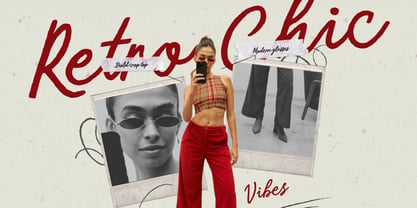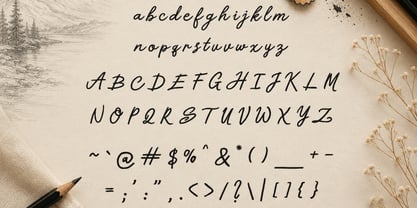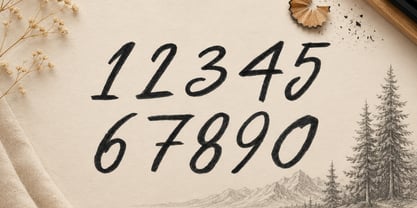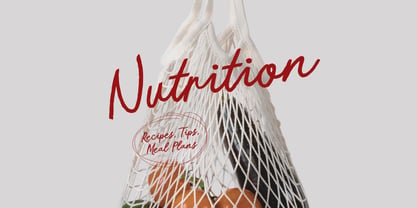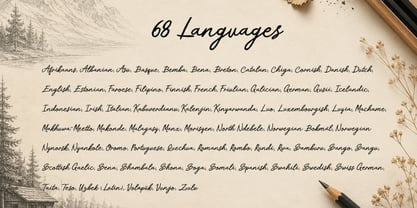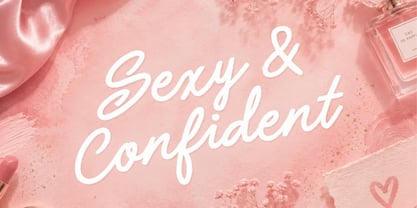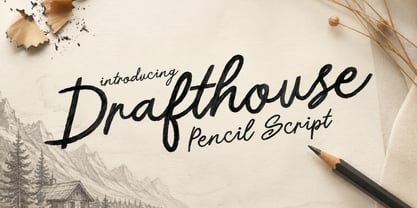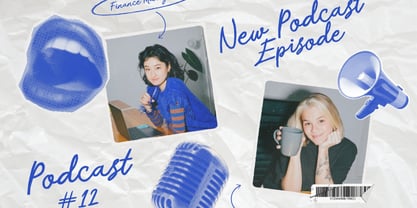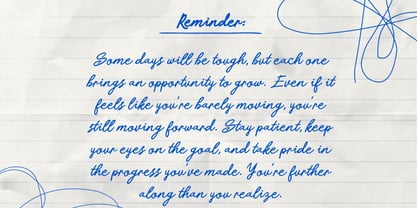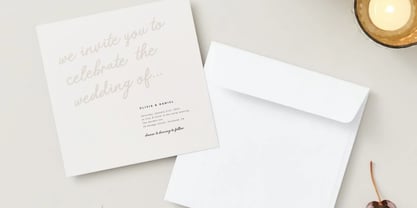
Drafthouse
The Drafthouse Font Family was designed by Igor Ovsyannykov and published by Hipfonts. Drafthouse contains 1 styles. More about this family
Bring the timeless charm of authentic pencil lettering to your creative projects with Drafthouse, a beautifully handcrafted script font inspired by the natural imperfections of real handwriting. Every stroke has been carefully designed to capture the subtle grain, pressure changes, and organic flow of a genuine pencil sketch, giving your typography an unmistakably human touch.
Whether you're designing elegant branding, heartfelt invitations, stylish packaging, social media graphics, book covers, journals, greeting cards, or creative marketing materials, Drafthouse delivers warmth, personality, and authenticity that instantly elevates your work. Its smooth handwritten rhythm feels both refined and approachable, making every word look effortlessly personal.
Unlike sterile digital scripts, Drafthouse embraces the beauty of imperfection. The delicate pencil texture adds depth without overwhelming your designs, creating lettering that feels handcrafted, expressive, and full of character. It strikes the perfect balance between casual creativity and polished professionalism, making it suitable for everything from modern lifestyle brands to rustic wedding stationery.